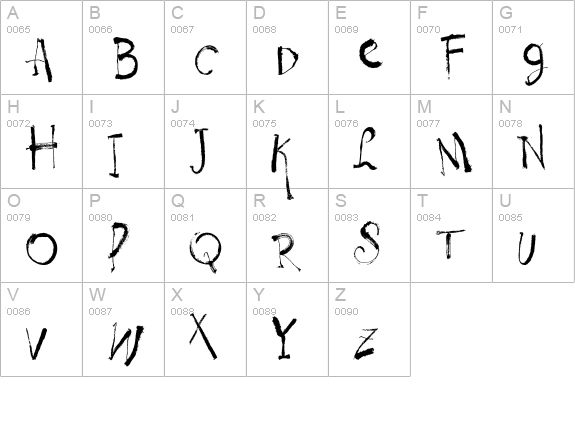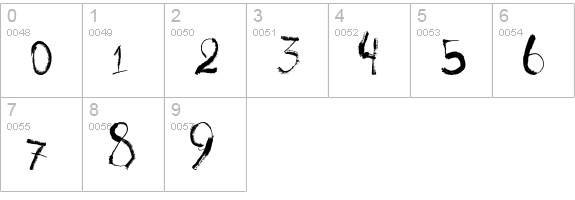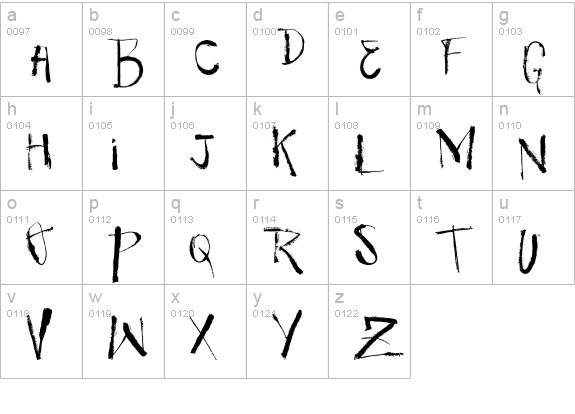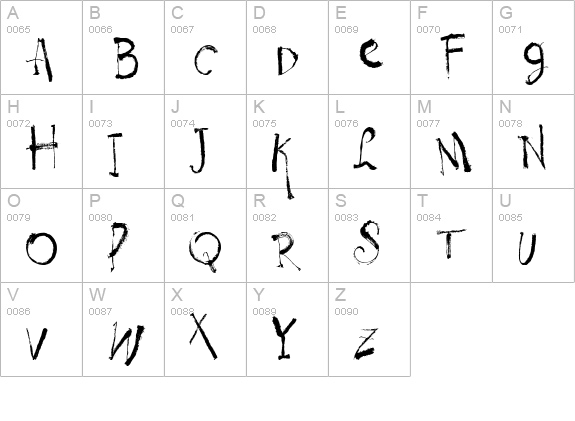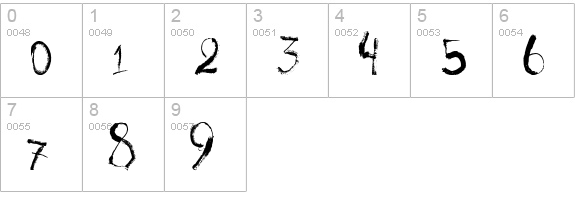
Vtks Samanbaia Font Details
Vtks Samanbaia font is a stunning display typeface that exudes elegance and sophistication. With its intricate details and unique curves, this font is perfect for adding a touch of sophistication to any design project. The flowing lines and intricate strokes give Vtks Samanbaia a distinct and eye-catching look that is sure to make your designs stand out. Best of all, Vtks Samanbaia font is available for free download at FontsMarket.com. This means you can easily add this beautiful font to your collection without any cost. Whether you're working on a branding project, creating invitations, or designing posters, Vtks Samanbaia font is a versatile choice that will elevate your designs to the next level. Download Vtks Samanbaia today and let your creativity shine!